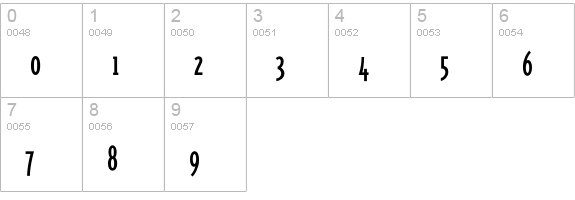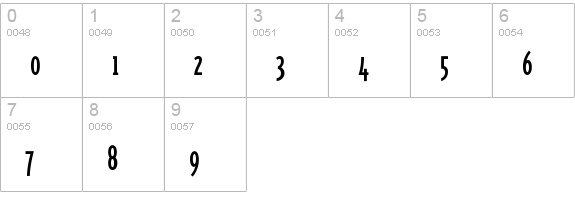
TriplexConSerOldstyle Font Details
TriplexConSerOldstyle font is a classic and elegant typeface that exudes a timeless charm. With its refined serifs and delicate curves, this font is perfect for adding a touch of sophistication to any project. The TriplexConSerOldstyle font is meticulously designed with attention to detail, ensuring that each character is balanced and harmonious. Its old-style letterforms bring a sense of tradition and heritage, making it an ideal choice for projects that require a touch of vintage elegance. One of the standout features of the TriplexConSerOldstyle font is its versatility. Whether used for headlines, body text, or even logos, this font shines in any context. Its legibility and readability make it a reliable choice for both print and digital applications. And the best part? TriplexConSerOldstyle font is available for free! You can easily download this font at FontsMarket.com, a trusted source for high-quality fonts. With just a few clicks, you can enhance your designs with this stunning typeface without breaking the bank. So why wait? Take advantage of the beauty and versatility of TriplexConSerOldstyle font today. Download it for free at FontsMarket.com and elevate your designs to the next level.